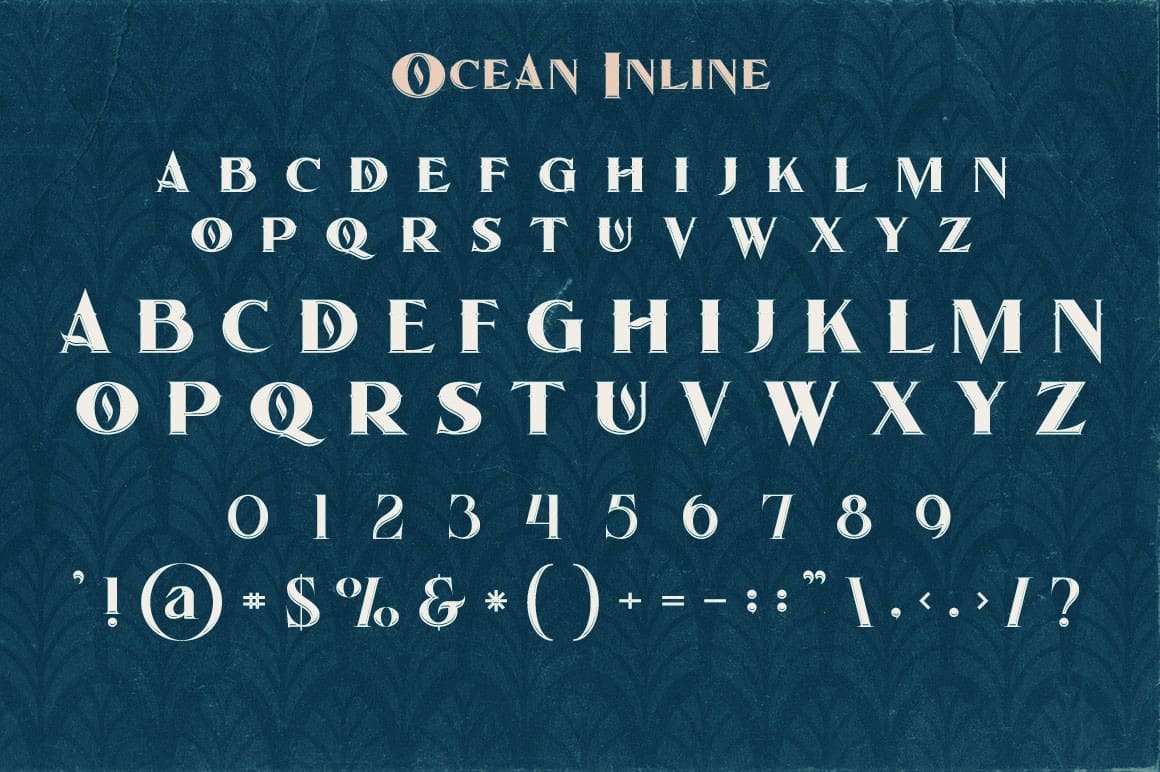
Ocean Inline Font
The Ocean Inline Font is well-known for its unique display typeface. In many cases, traditional choices may be your best option. Sometimes, a bold font like this one may be exactly what you’re looking for.
Like garamond font will round out your format nicely and could allow you to deliver the proper tone and message.